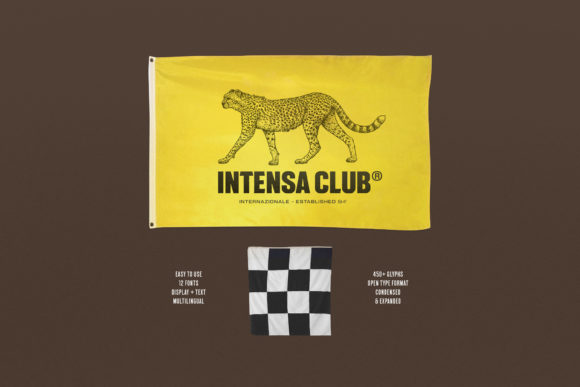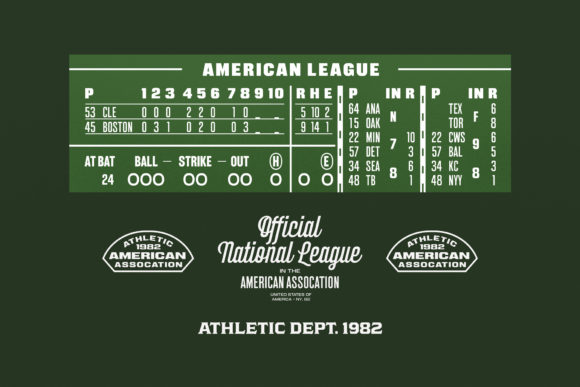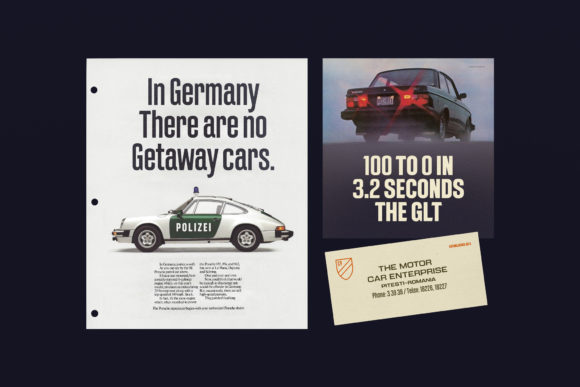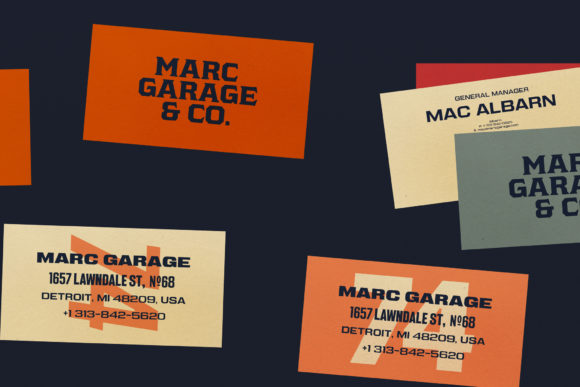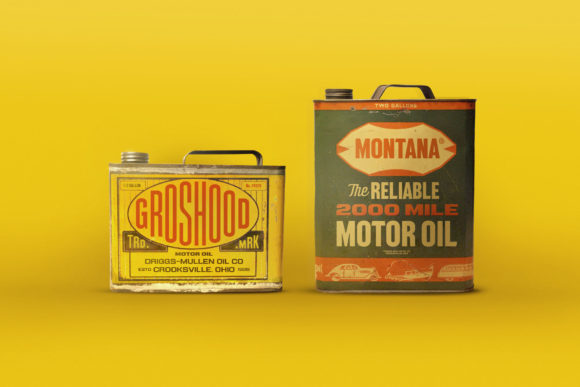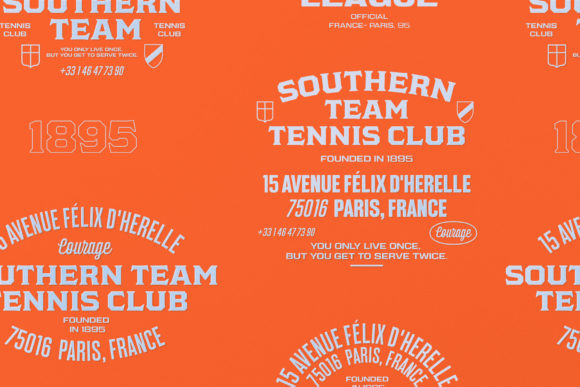
Introduction to Intensa Family Font Font
Fonts play a crucial role in design, and the Intensa Family Font font is a typeface that brings both character and versatility to any project. Whether you’re working on a branding project, a website, or a print design, the Intensa Family Font font offers a unique style that can elevate your work.
Intensa is a beautiful font family with an incredible vintage vibe.
Inspired by the 1960’s, it will add a unique retro feel to any design idea .
Key Features of Intensa Family Font Font
Why Choose Intensa Family Font Font?
The Intensa Family Font font is more than just a typeface – it’s a design tool that helps you communicate your message with style and clarity. Its unique character set and versatile design make it suitable for a wide range of applications, from elegant invitations to bold headlines.
With its carefully crafted letterforms and balanced proportions, the Intensa Family Font font ensures readability and visual appeal across all mediums.
What makes Intensa Family Font font special?
The Intensa Family Font font stands out with its unique design, exceptional readability, and versatility across various design applications.